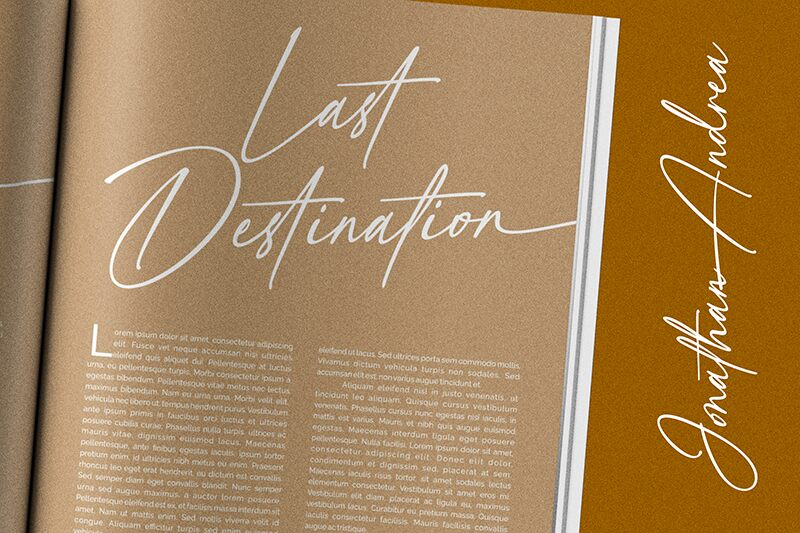
Dear Script
Dear Script typeface by Riyadh Rahman is a free light handwritten font. It stands out with airy, ribbon-thin strokes that taper like real ink from a fine liner, plus easy, long tails that glide into the next letter. The rhythm feels candid and unforced—slight texture, relaxed slant, and open counters keep it elegant without turning fussy.
Using Dear Script, your brand marks, wedding suites, product packaging, social quote cards, photography watermarks, boutique menus, and lifestyle blog graphics take on a warm, signature-like presence. This free font reads clearly at larger sizes and shines on uncluttered layouts; pair it with a quiet, all-caps sans to let the script breathe.